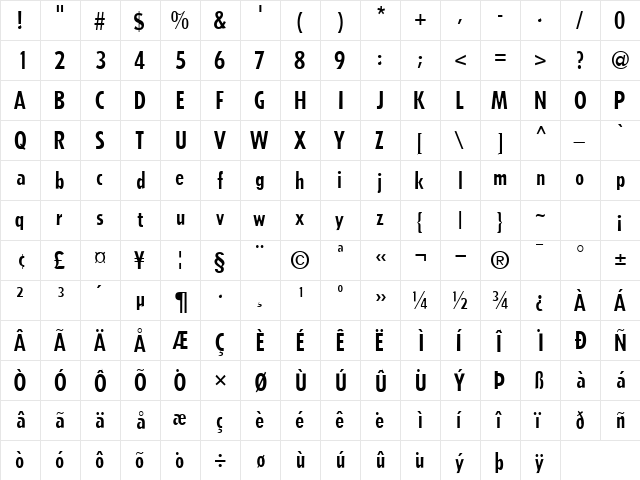
ArcheCondSSK Regular
Design Context for ArcheCondSSK Typeface
ArcheCondSSK is a composed and adaptable typeface that performs quietly and consistently across a wide range of design contexts. Its narrow stance lets it pack a punch even in space-constrained designs.